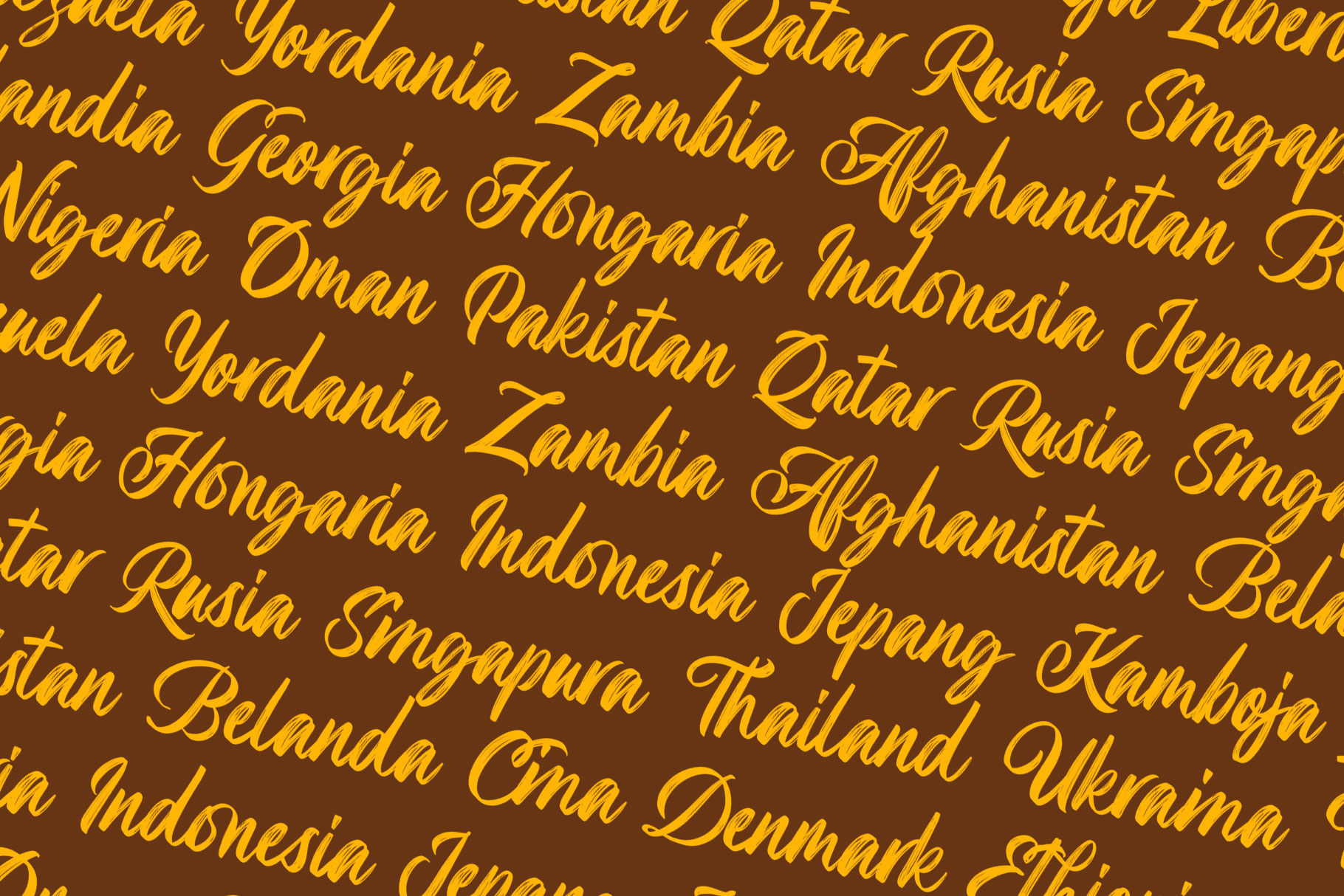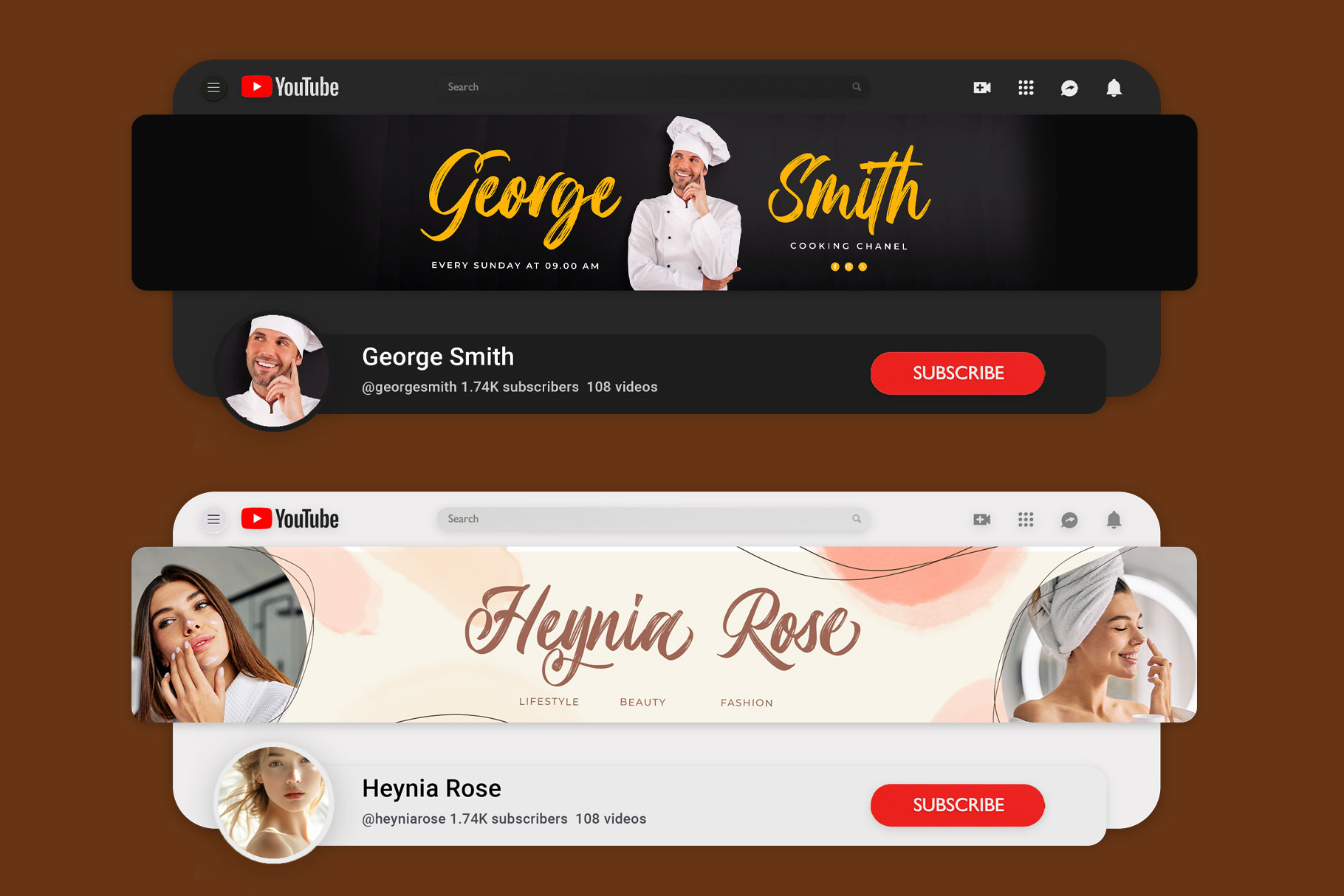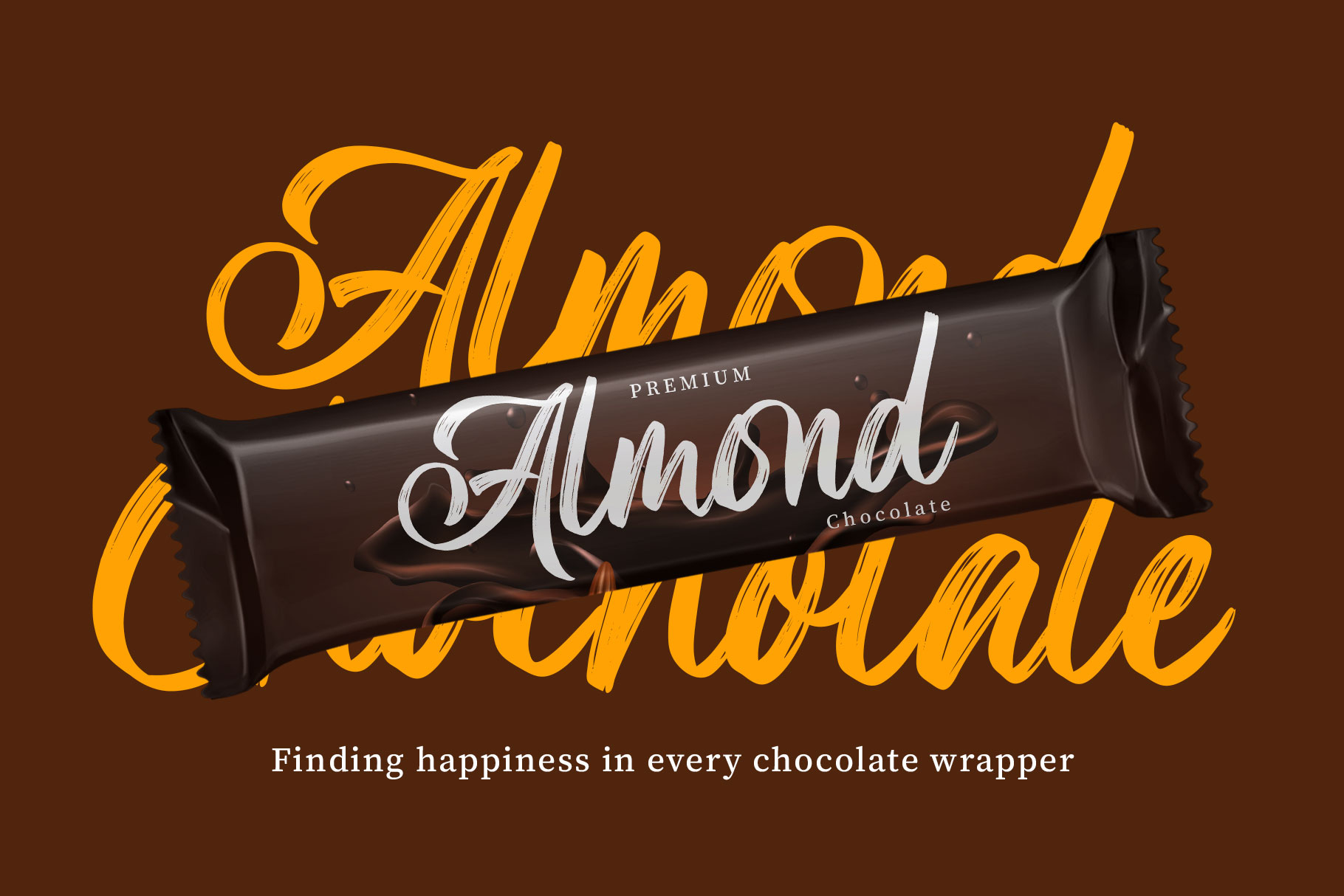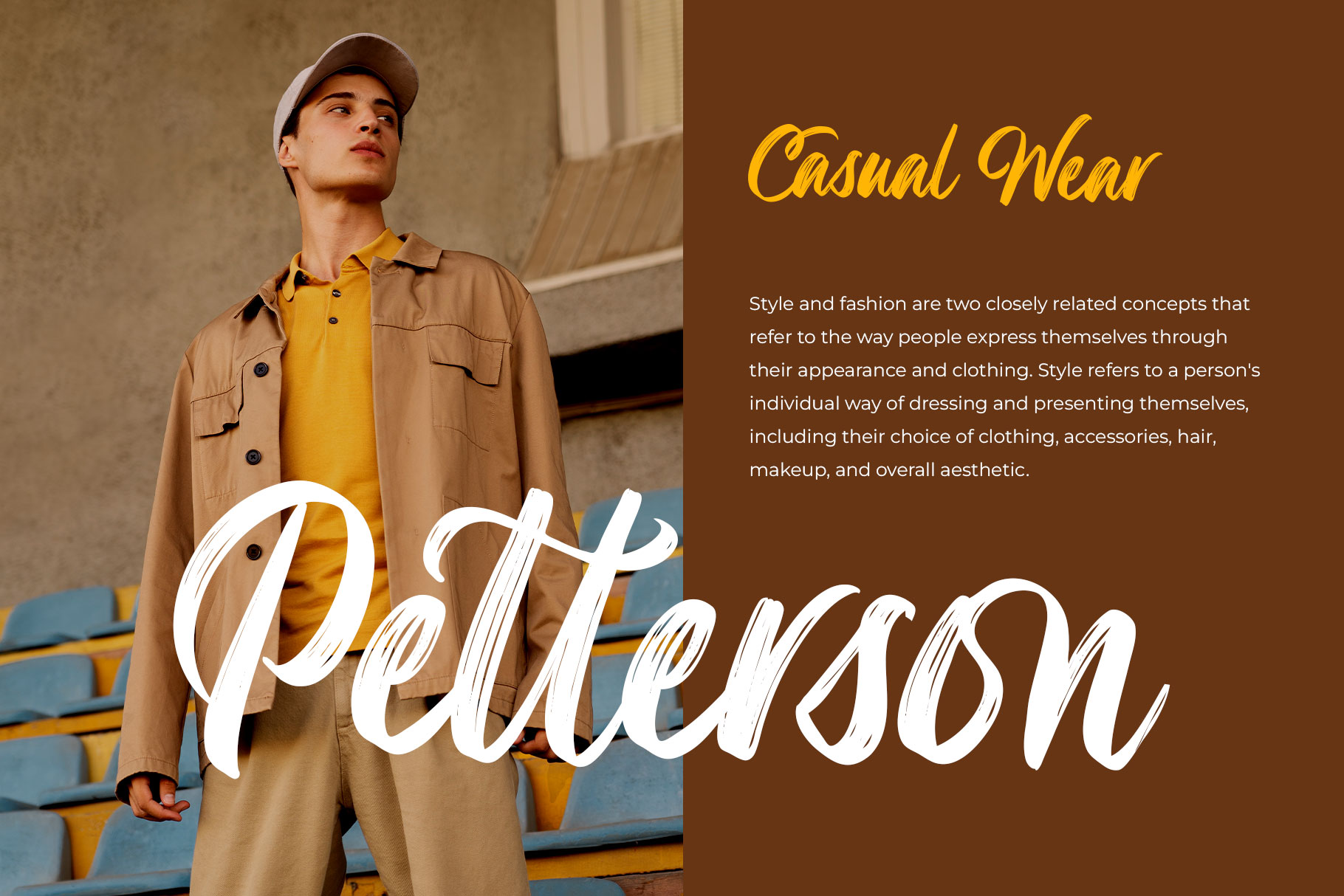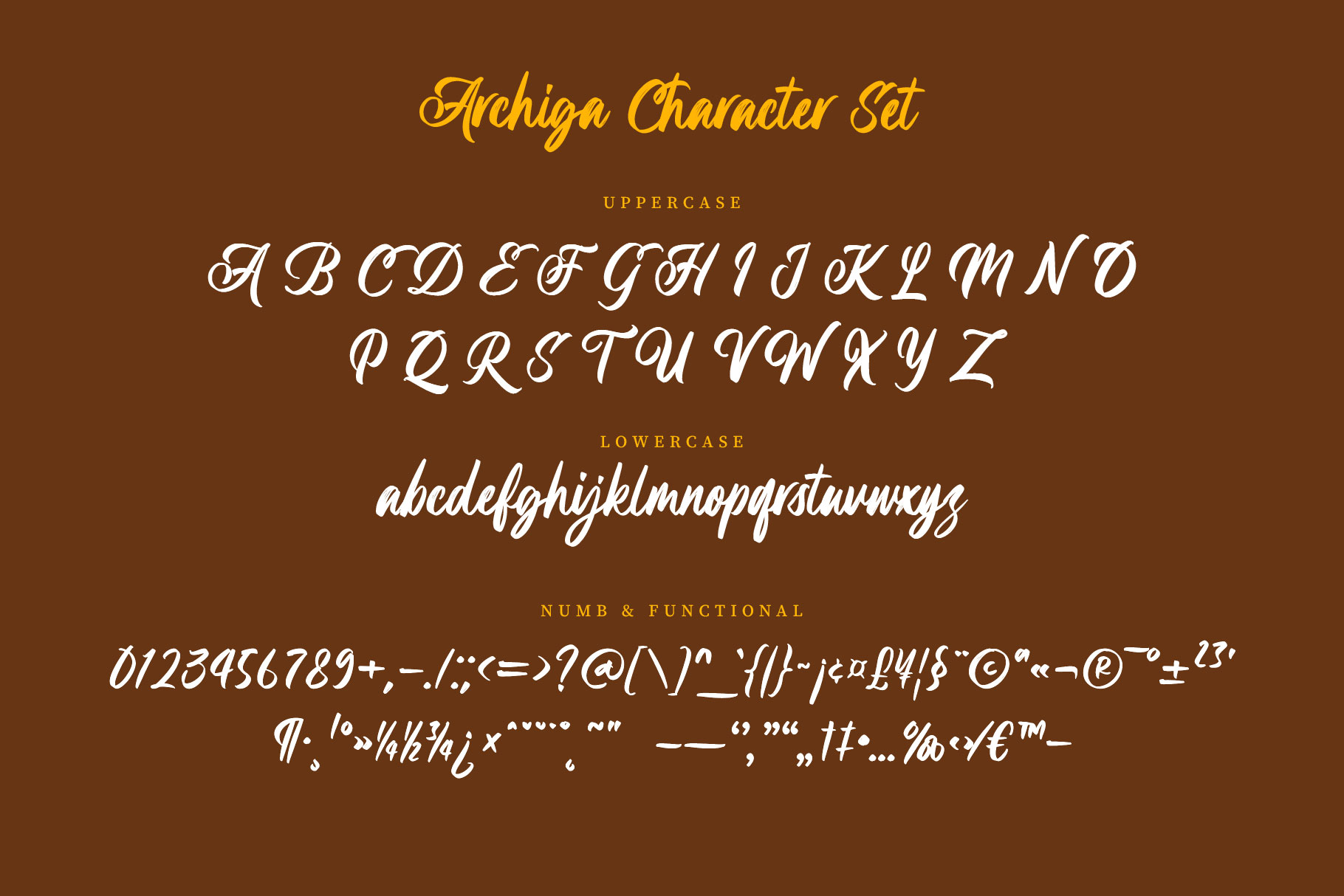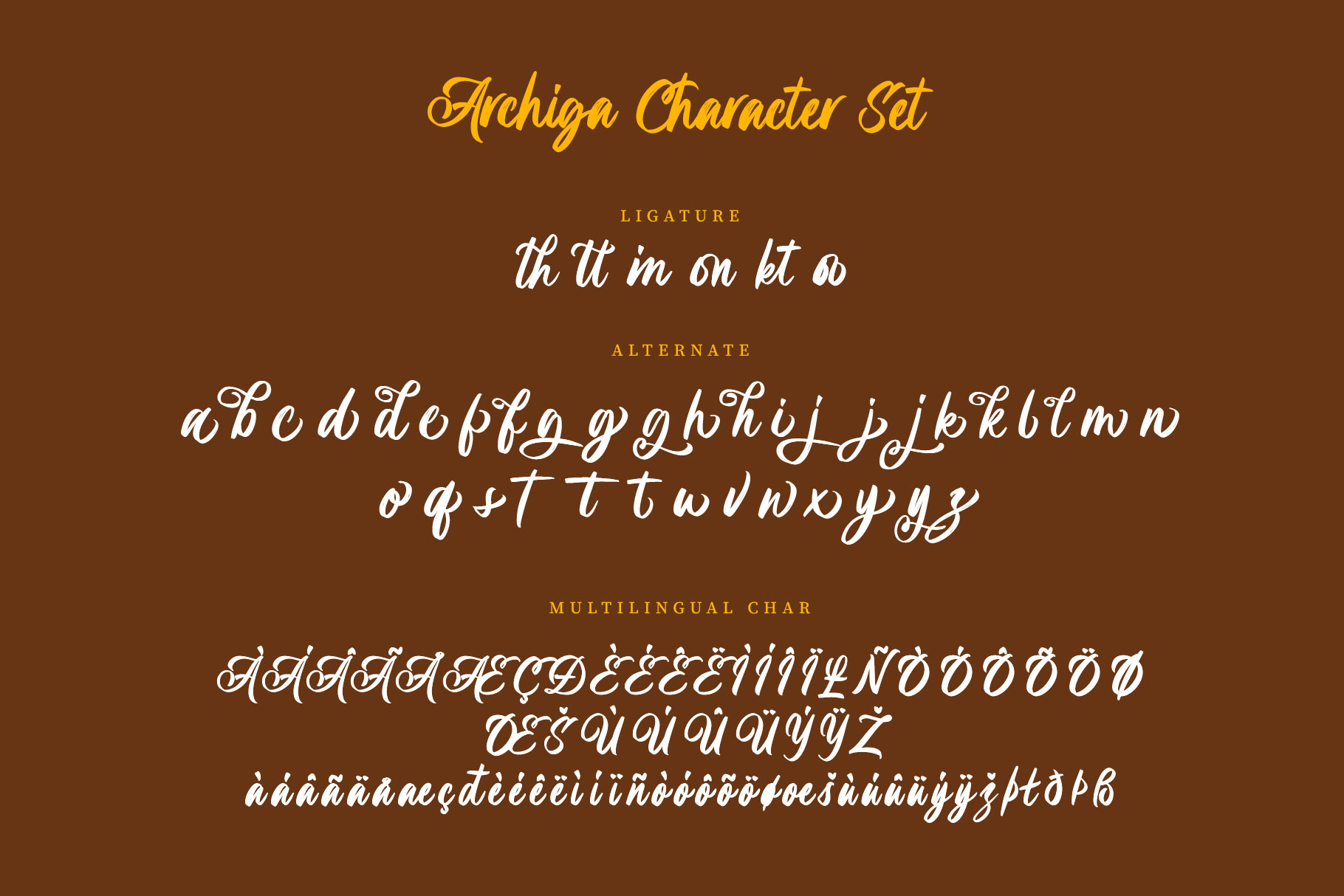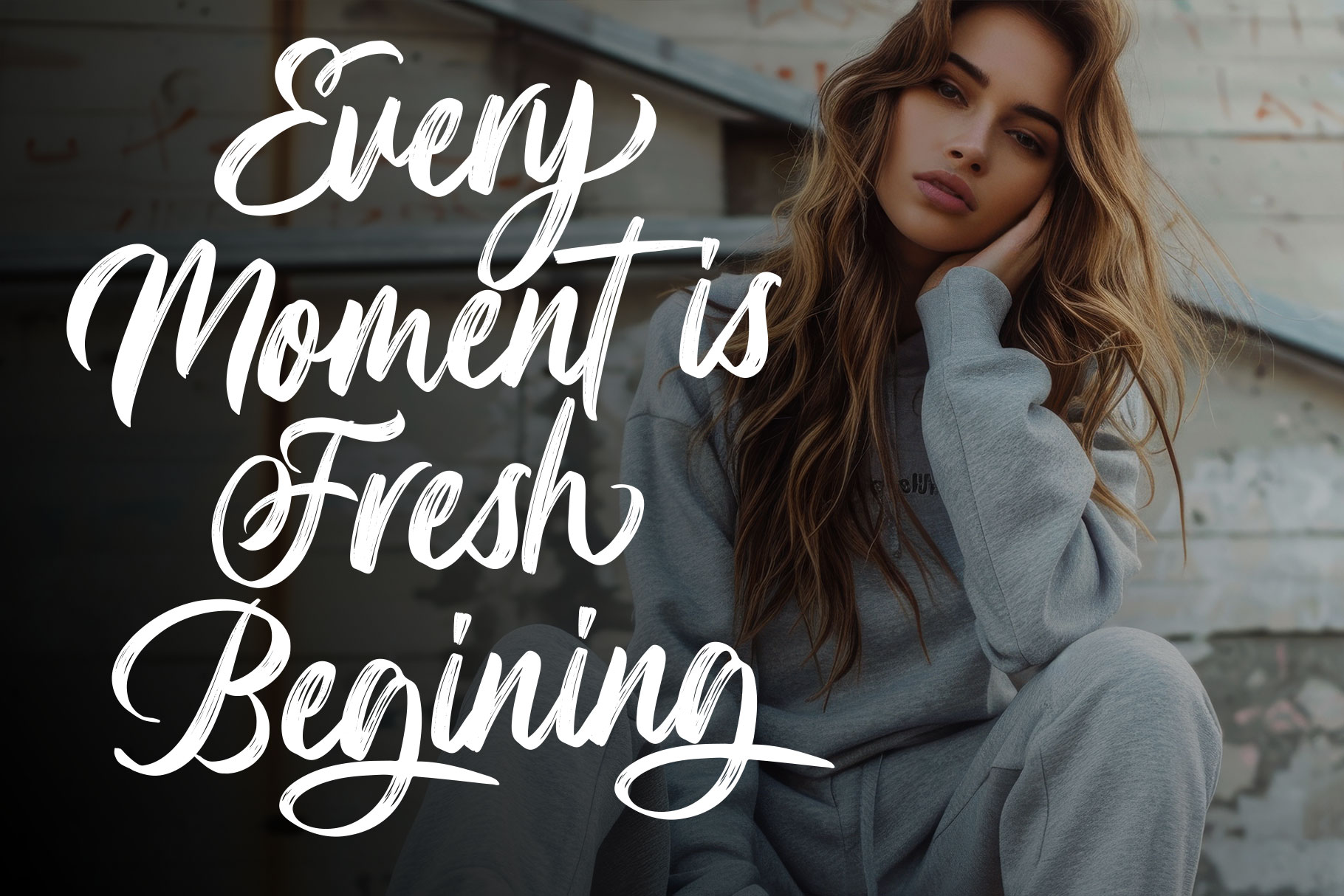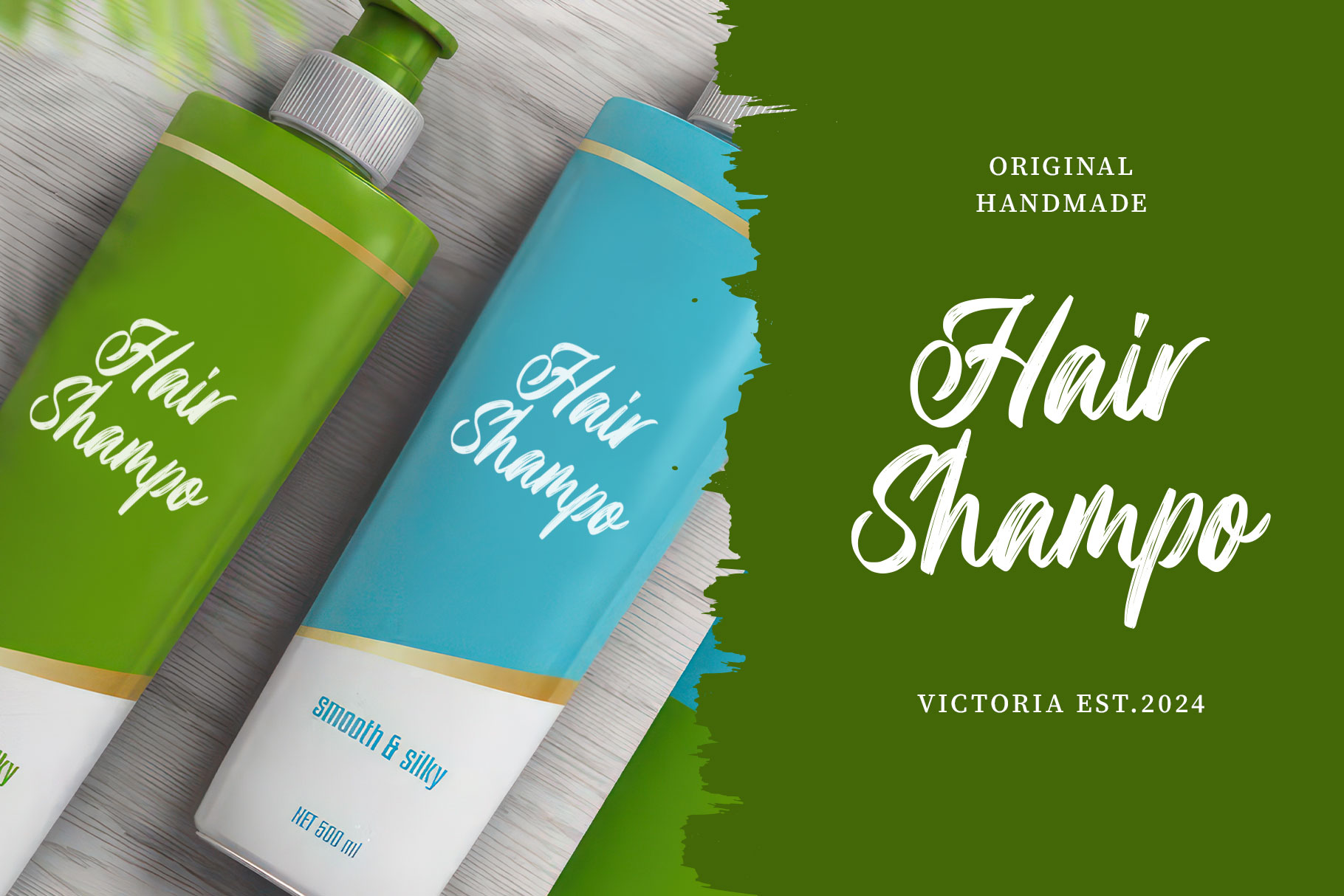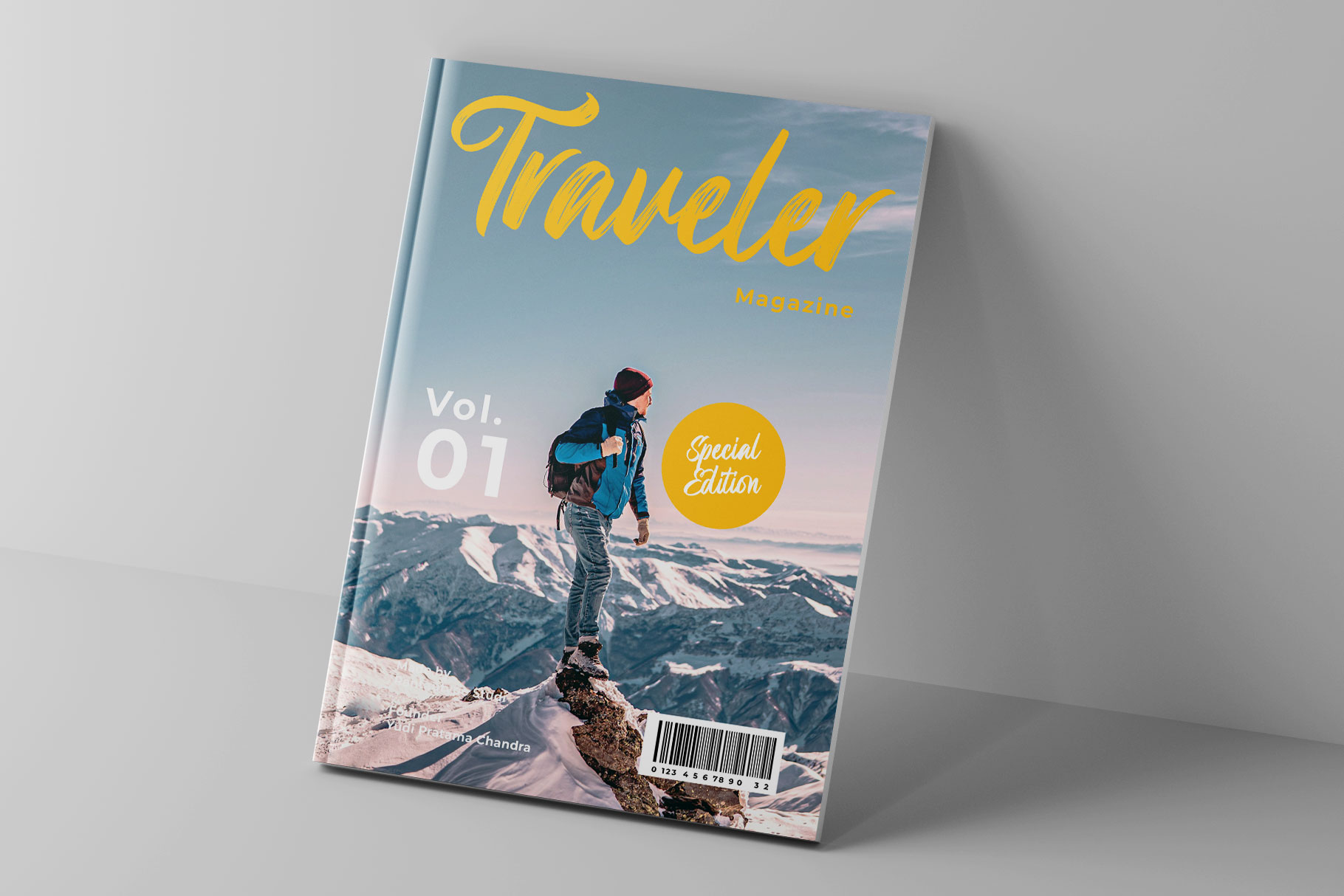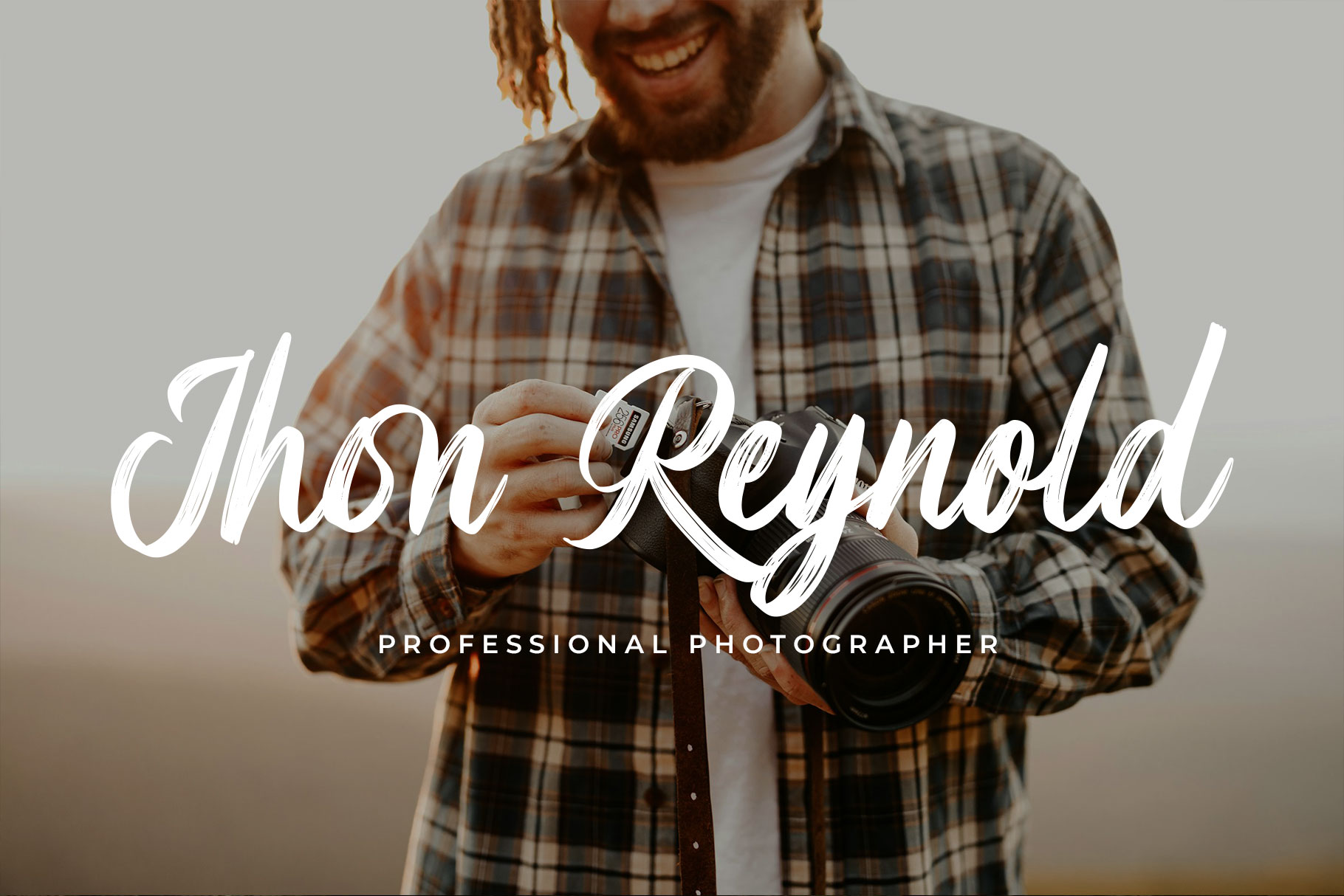
Archiga is brush font with authentic texture hand crafted. Fresh sophisticated brush font ” Archiga ” bring a detail texture to design project more attractive and stand out.
Archiga is a perfectly choice for any creative endeavor, chic, lifestyle design such as logos, advertisements, watermark on photography, stationery, branding project, display and magazine, invitation, corporate brand, product design, label, business project and other project with handwritten taste.
Archiga A Script Brush Font